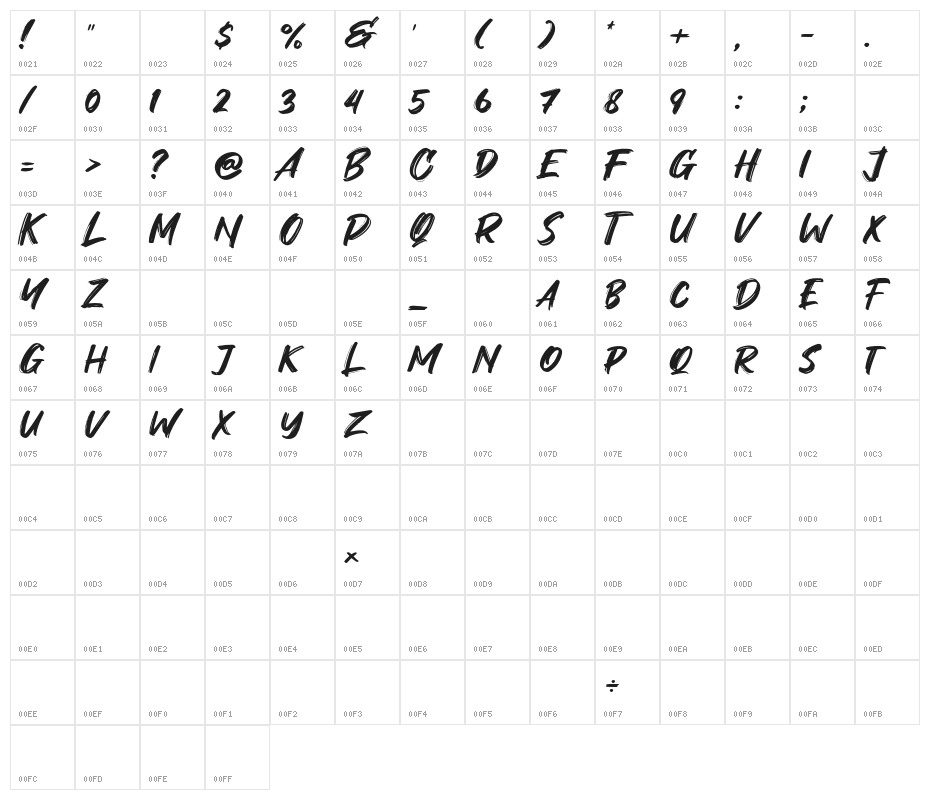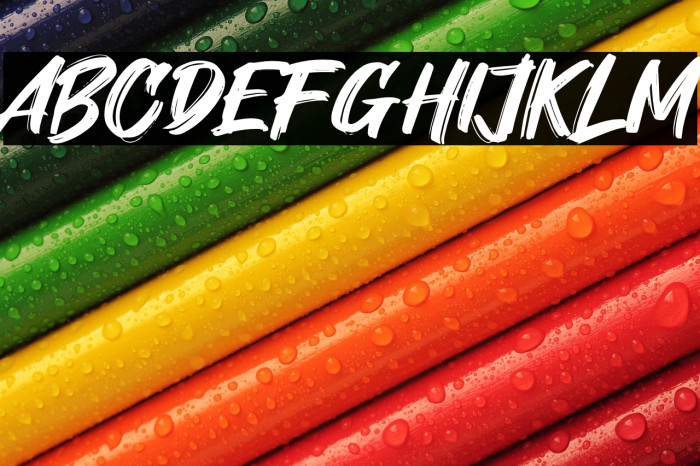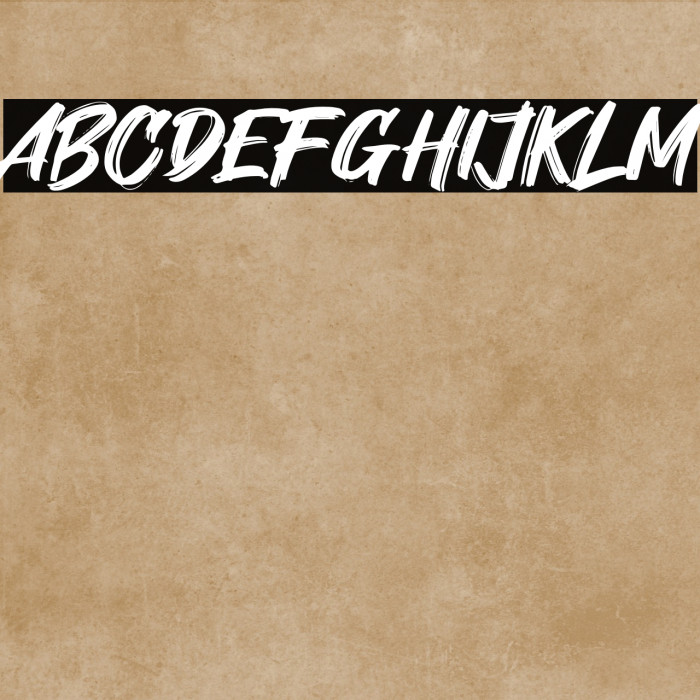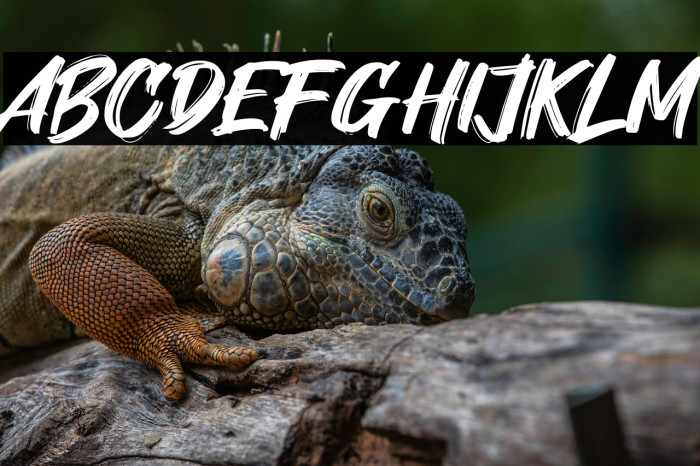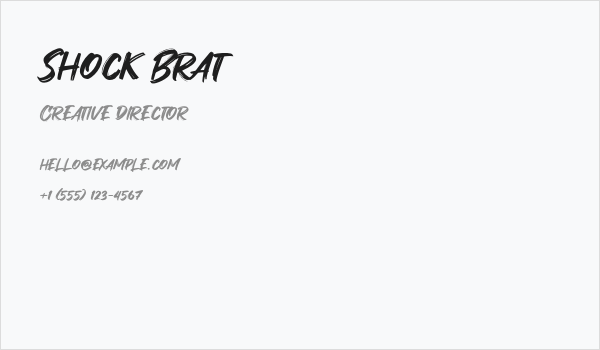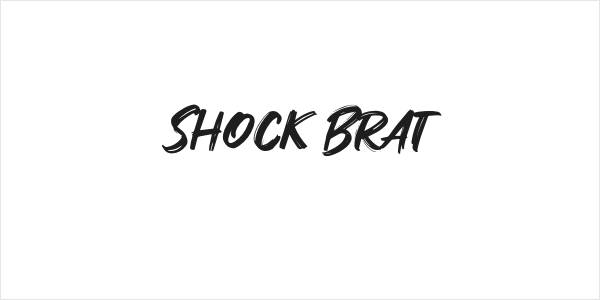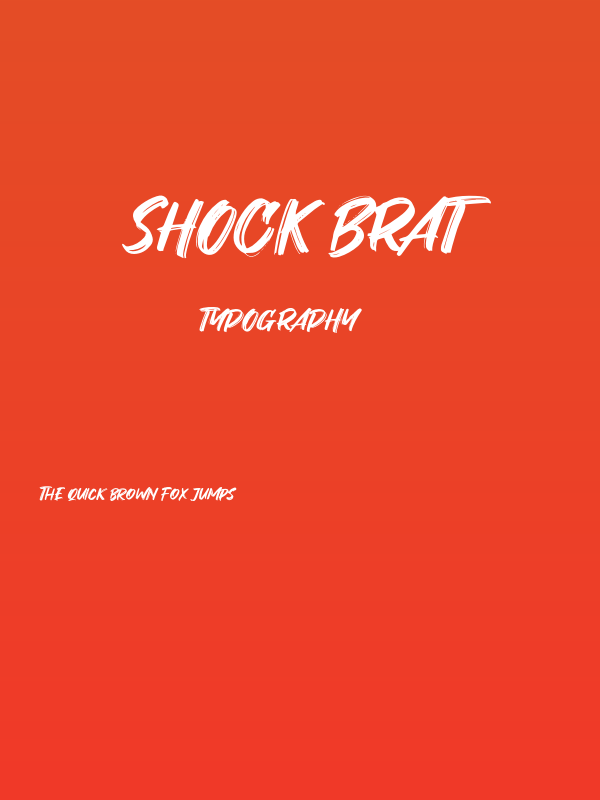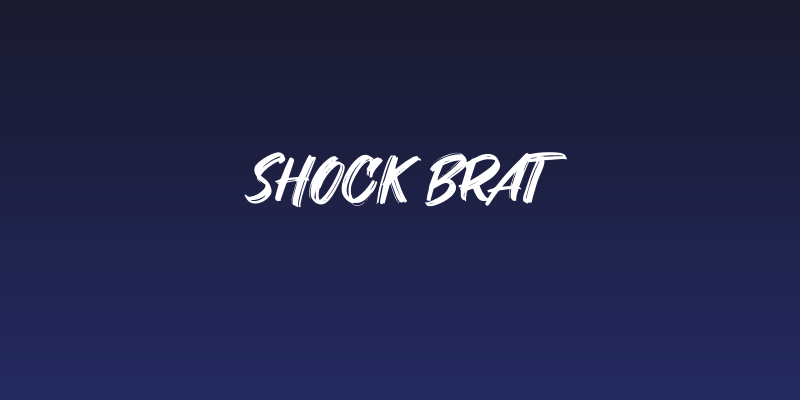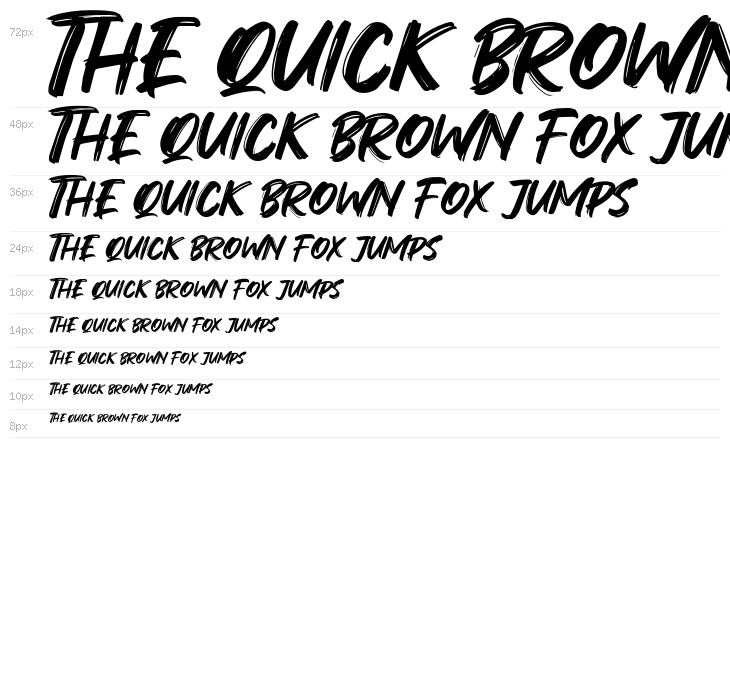
Shock Brat Font
Shock Brat Description
This font features a bold, expressive style with a brush-like appearance, giving it a dynamic and energetic feel. The strokes are thick and uneven, adding a sense of movement and spontaneity. Each character is distinct, with a slightly rough texture that enhances its handmade aesthetic. The uppercase and lowercase letters maintain a consistent style, while the numbers and special characters complement the overall design. This font is ideal for projects that require a strong visual impact and a touch of artistic flair.
| Proposed Projects | Ideal for posters, branding, album covers, and any project needing a bold, artistic touch. |